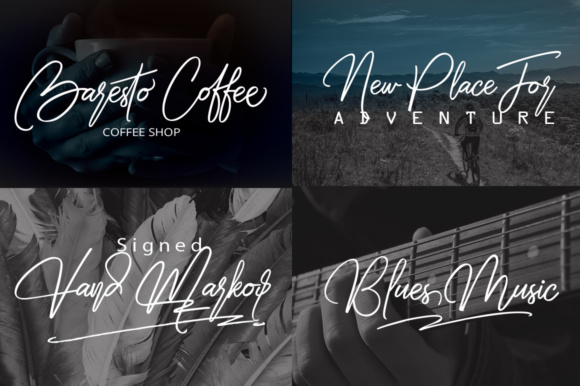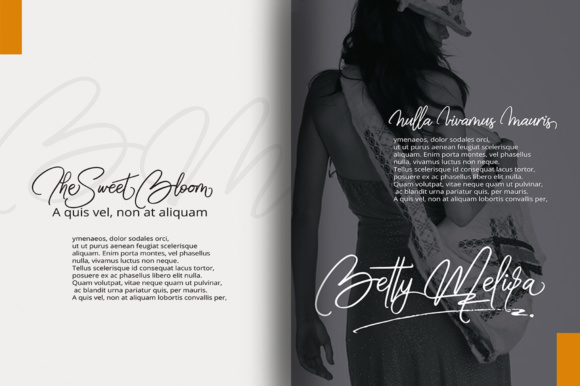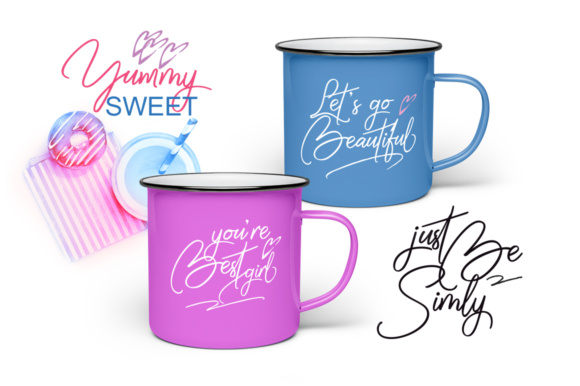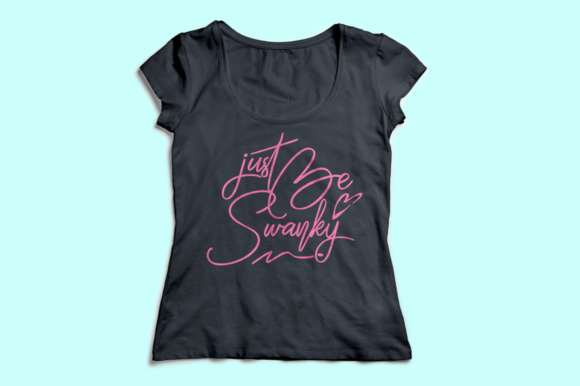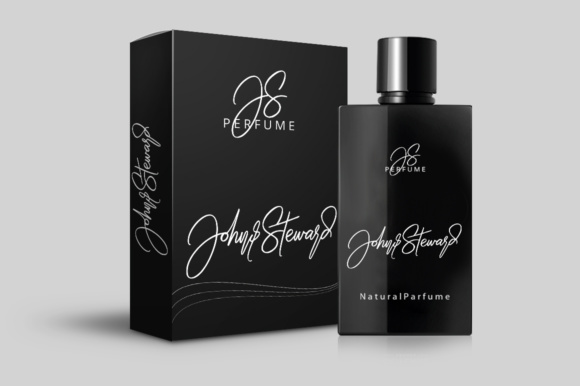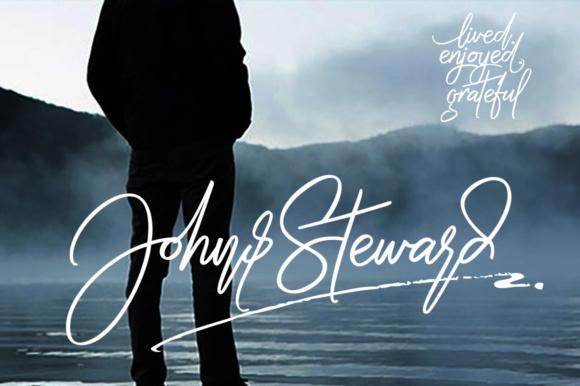
Bella Font: A Beautiful Handwritten Font for Your Design Projects
Are you looking for a font that adds a personal touch to your designs? Look no further than Bella Font, a stunning handwritten font that is perfect for a wide range of projects. Inspired by the beauty of handwriting, Bella Font is a great choice for designers and crafters who want to add a touch of elegance and sophistication to their work.
What is Bella Font?
Bella Font is a beautiful, handwritten font that is designed to mimic the look and feel of handwriting. With its flowing lines and cursive strokes, this font is perfect for creating logos, branding materials, and other designs that require a personal touch. Whether you’re working on a project for a client or creating something for your own business, Bella Font is a great choice.
Features of Bella Font
Bella Font has a number of features that make it a great choice for designers and crafters. Some of the key features include:
- Handwritten look: Bella Font has a beautiful, handwritten look that is perfect for adding a personal touch to your designs.
- Cursive strokes: The font features flowing cursive strokes that give it a elegant and sophisticated feel.
- Versatile: Bella Font is perfect for a wide range of projects, from logos and branding materials to invitations and other stationery.
- Easy to read: Despite its handwritten look, Bella Font is easy to read and understand, making it perfect for body text and other applications where readability is important.
Uses for Bella Font
Bella Font is a versatile font that can be used for a wide range of projects. Some of the most popular uses for this font include:
- Logo design: Bella Font is perfect for creating logos and branding materials that require a personal touch.
- Invitations and stationery: The font’s elegant and sophisticated feel makes it perfect for invitations, greeting cards, and other stationery.
- Packaging design: Bella Font can be used to add a personal touch to packaging design, making products stand out on store shelves.
- Digital design: The font can be used for digital designs, such as social media graphics, website headers, and more.
Why Choose Bella Font?
There are many reasons why Bella Font is a great choice for designers and crafters. Some of the key benefits of using this font include:
- Unique look: Bella Font has a unique and distinctive look that sets it apart from other fonts.
- Elegant and sophisticated: The font’s elegant and sophisticated feel makes it perfect for high-end designs and luxury brands.
Tips for Using Bella Font
Here are a few tips for using Bella Font in your designs:
- Use it sparingly: Bella Font is a bold and elegant font, so use it sparingly to add emphasis to your designs.
- Pair it with other fonts: The font pairs well with other fonts, such as sans-serif fonts and script fonts.
- Experiment with colors: Bella Font looks great in a variety of colors, so experiment with different colors to find the one that works best for your design.
Bella Font is a beautiful and elegant handwritten font that is perfect for a wide range of design projects. With its unique look, elegant feel, and versatility, this font is a great choice for designers and crafters who want to add a personal touch to their work. Whether you’re working on a logo design, invitation, or packaging design, Bella Font is a great choice.